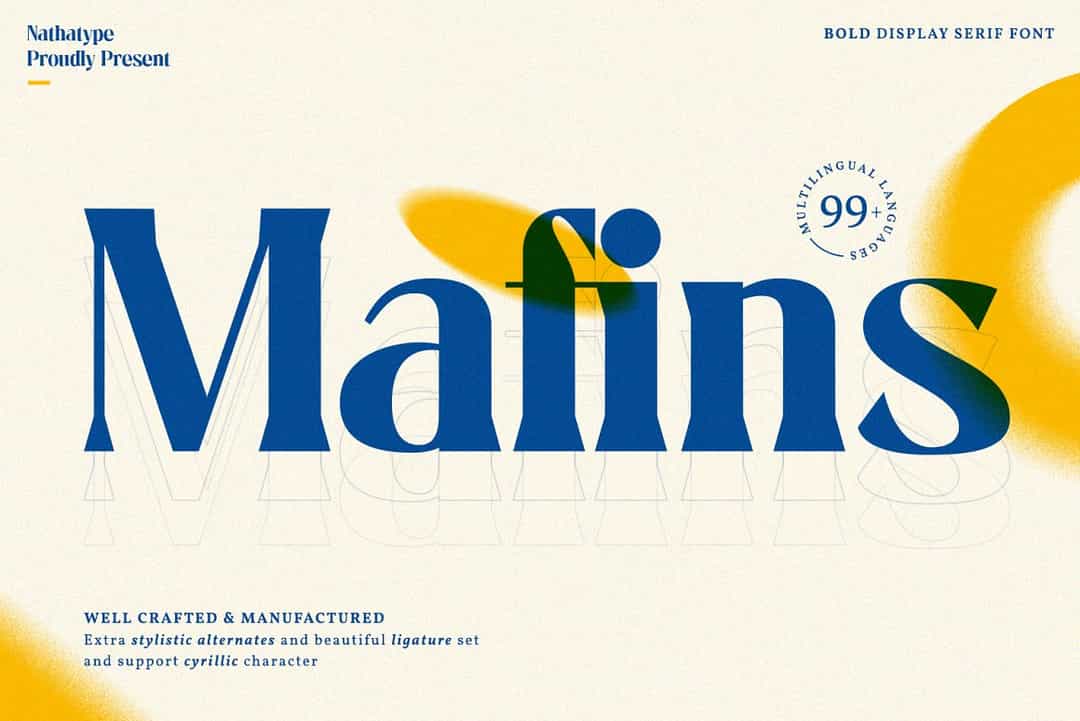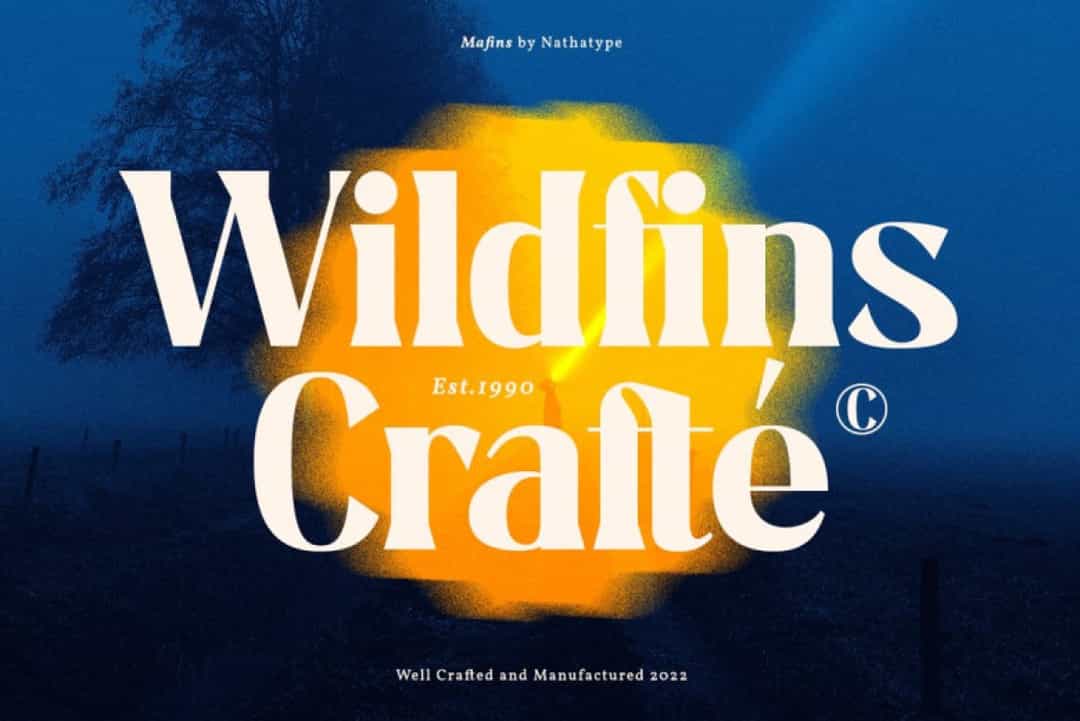
Mafins is a hybrid font comprised of both serif and thick display fonts. Crafted in formal yet contemporary elegant designs similar to other serif typefaces, its difference between thin and thick lines of each character stands out significantly; edges of letters have also been rounded for legibility purposes.